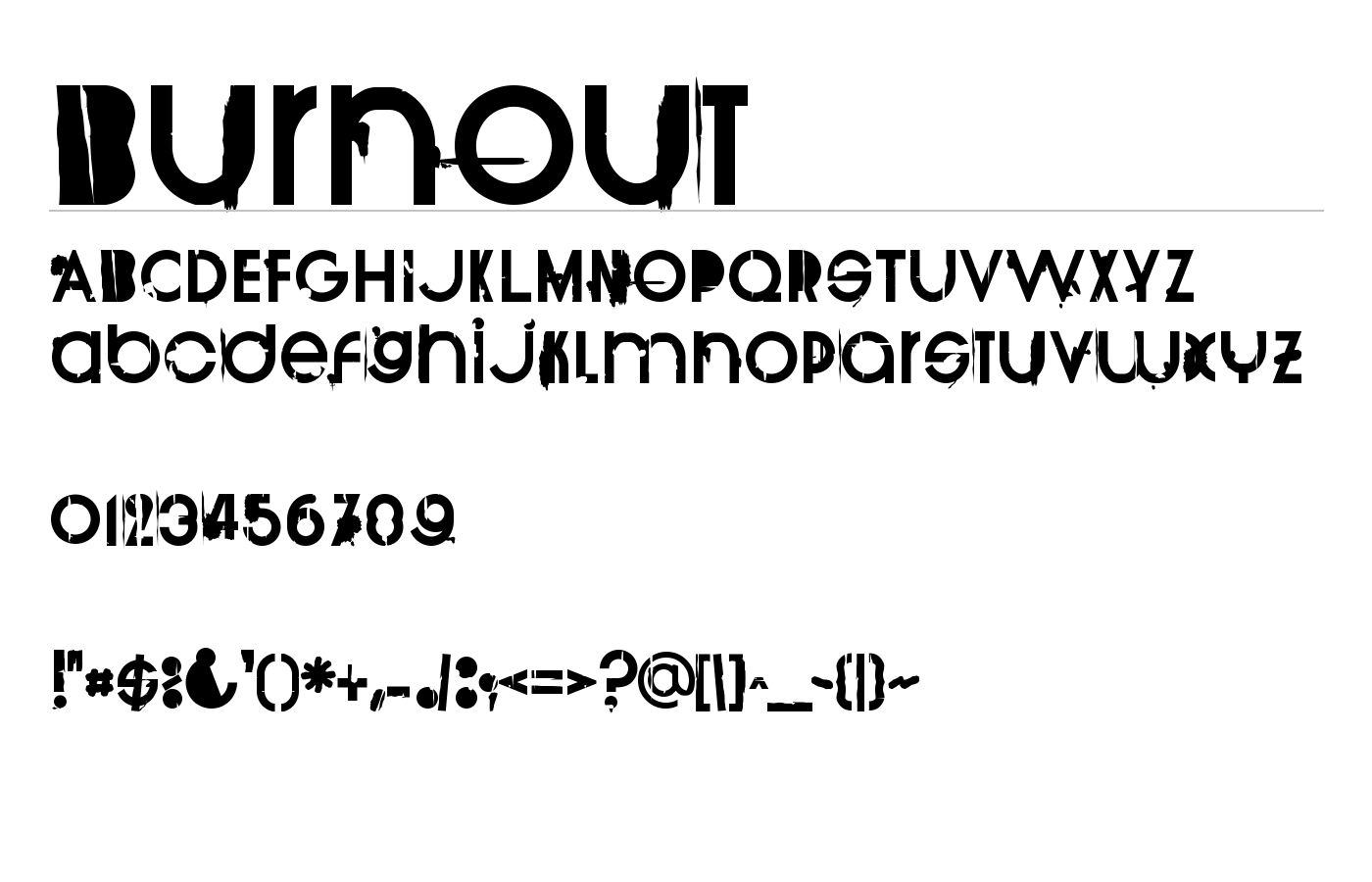
BurnOut is a bold, sans serif display font with a distressed, eroded texture that gives it a rugged, worn-out appearance. Its strong geometric shapes combined with the rough, broken edges create a striking, edgy personality, ideal for designs seeking a grunge or industrial vibe. This font works best for eye-catching headlines, posters, and branding that aim to convey raw energy and rebellious style.
BurnOut Font
About BurnOut Font
| Font family | BurnOut Font |
| Designer | paintblack |